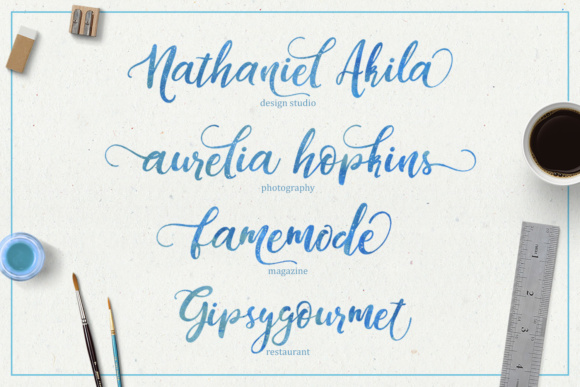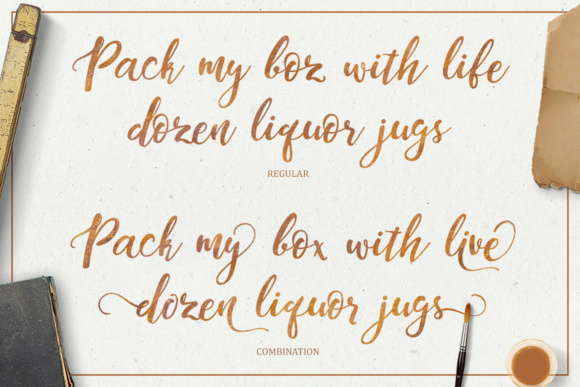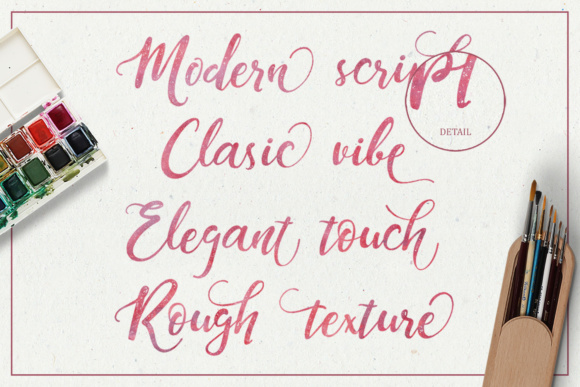
The Dandeleón Font: A Handmade Dream for Designers
I still remember the design project that led me to discover the Dandeleón font. I was working on a branding project for a crafty client, and I needed a font that would capture the essence of handmade and whimsical. I scoured the internet, tried out dozens of fonts, but nothing seemed quite right. That was until I stumbled upon Dandeleón. Its beautiful, inky script and effortless flow instantly won me over. I knew right then and there that it was the perfect fit for my project.
- ✨ The handmade, calligraphy-inspired look that adds a touch of warmth to any design
- ✅ Easy to use and pairs well with a variety of fonts
- 💫 Beautifully crafted with attention to detail, making it perfect for high-end designs
- 🎨 Highly versatile and can be used in a wide range of projects, from branding to packaging
While Dandeleón is an amazing font, there are a few things to keep in mind:
- ⚠️ It may not be the best choice for very small text sizes, as some details may get lost
- 🤔 Some users may find the font a bit too ornate for certain projects, but this can also be a pro!
- Experiment with the font’s OpenType features, such as stylistic alternates, to add more personality to your text
The Story Behind Dandeleón
While the true story behind Dandeleón may be unknown, it’s easy to imagine that it was created by a designer who loves handmade and vintage aesthetics. The font’s beautiful, inky script and attention to detail suggest a passion for craftsmanship and a desire to create something truly special.
Q: What type of projects is Dandeleón best suited for?
A: Dandeleón is a versatile font that can be used in a wide range of projects, from branding and packaging to wedding invitations and social media graphics.
Q: Is Dandeleón easy to read?
A: Dandeleón is a script font, and while it’s beautiful, it may not be the most readable font for very small text sizes or body text. However, it’s perfect for headings, titles, and other display text.
Q: Can I use Dandeleón with other fonts?
A: Absolutely! Dandeleón pairs well with a variety of fonts, from sans serifs to serifs. Experiment with different combinations to find the perfect pairing for your project.